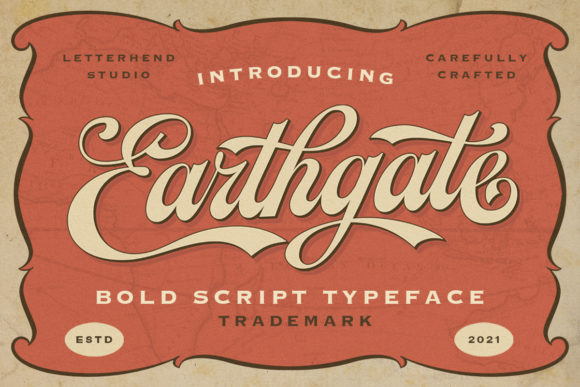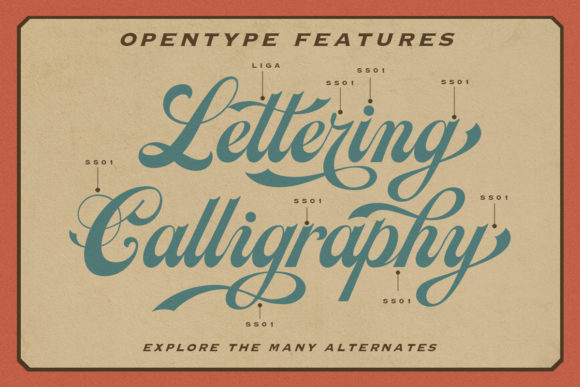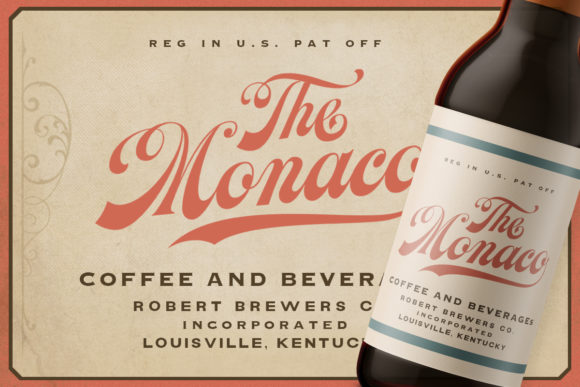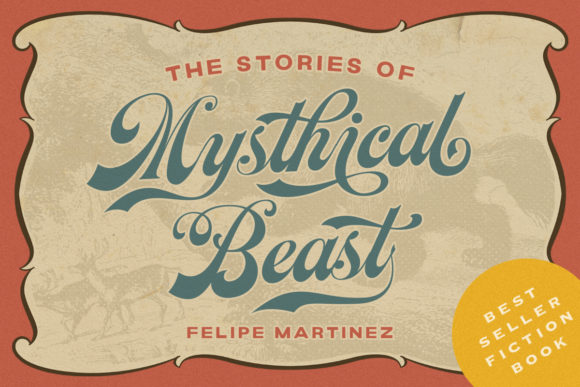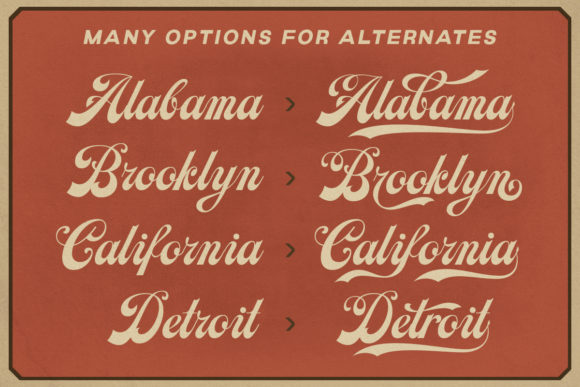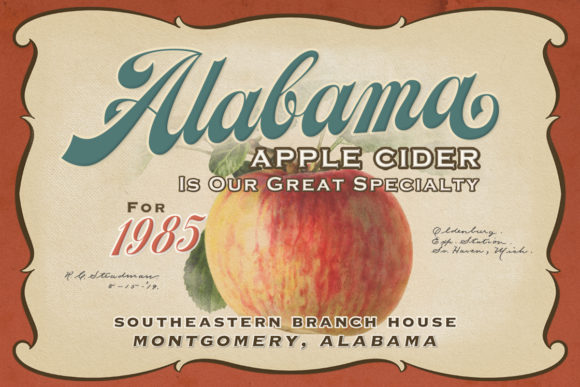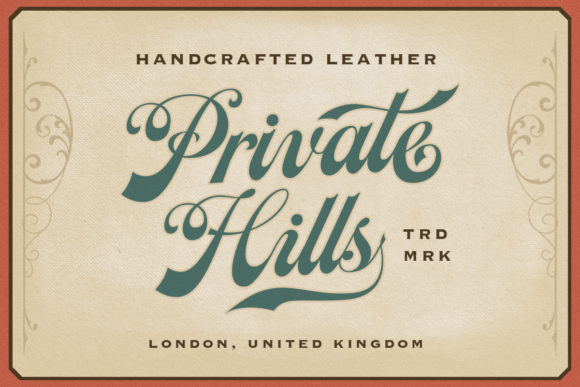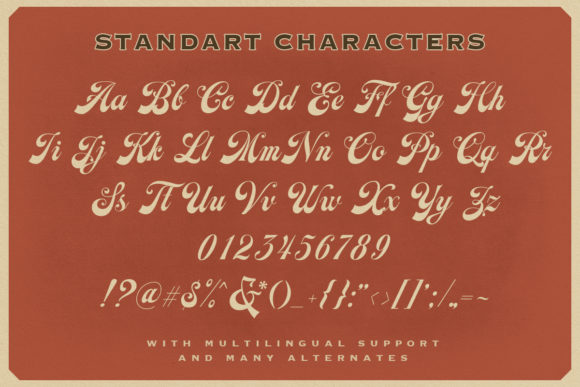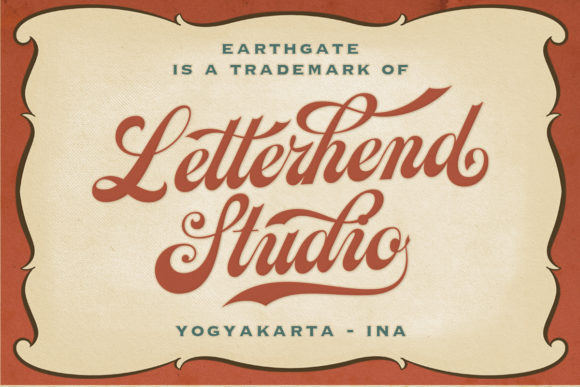
Earthgate Font
About Earthgate Font
“Earthgate” sounds like a gorgeous and bold handwritten font that brings a stylish and retro touch to your headlines and logotype projects. With its strong, confident, and dynamic appearance, this font has the potential to add tons of nostalgic character to your designs, creating a captivating and memorable visual experience.
By using “Earthgate” in your designs, you can achieve a sense of strength and boldness. Its handwritten style adds a personal and artistic touch, making your headlines and logotypes feel more unique and engaging.
This font’s stylish and retro nature makes it ideal for various design contexts. Whether you’re working on branding, logos, posters, or any other project that requires a touch of nostalgia, “Earthgate” can effortlessly enhance the visual impact and create a standout retro atmosphere.
With “Earthgate,” you have a font that adds a bold and dynamic vibe, making your projects visually stunning and captivating.
Incorporate “Earthgate” into your designs, and you’ll see how it brings a touch of retro style and nostalgic character, making your headlines and logotypes truly exceptional and memorable.
While embracing the bold and retro touch of “Earthgate,” remember to maintain readability and legibility, especially for logotype designs. Proper spacing and alignment between letters ensure that the text remains clear and easy to read, preserving the font’s overall strength and stylish retro appeal.
In conclusion, “Earthgate” is a gorgeous and bold handwritten font that adds a stylish and retro touch to your headlines and logotype projects. Embrace its strong and confident appearance, and let it be the font that adds tons of nostalgic character to your designs. With “Earthgate,” your creations will exude a sense of uniqueness and captivate the hearts of your audience, making them truly exceptional and visually captivating.